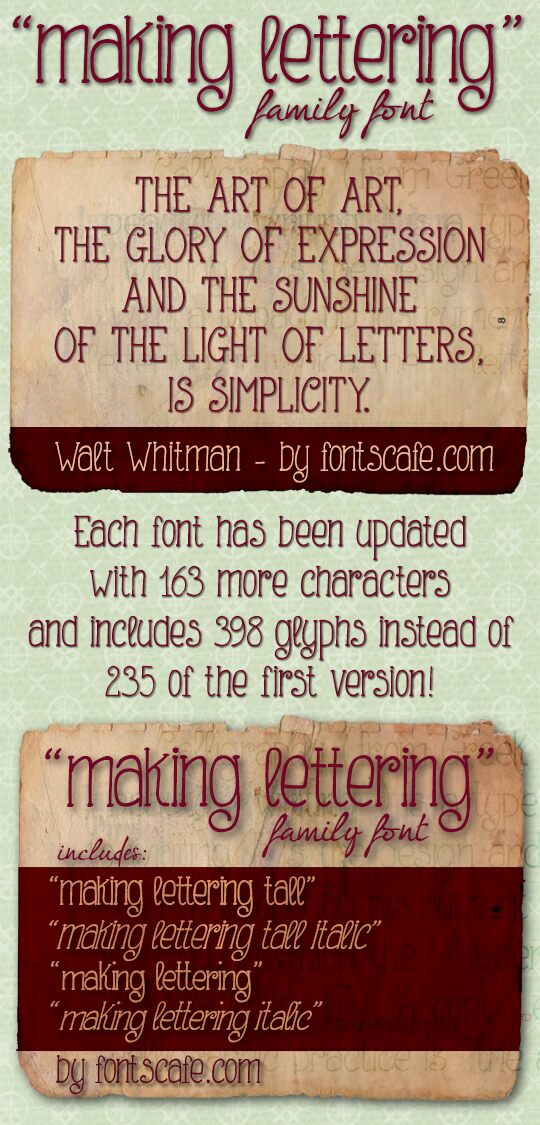
Making Lettering Tall from FontsCafe is a free old-school display font with a lanky, hand-drawn build. Its narrow letters rise unevenly on gently changing strokes, with pinched joins, soft curves, and small flared tips that recall informal mid-century sign painting.
A cafe menu is its most convincing home. The loose vertical forms also fit food packaging, music posters, and playful editorial covers, especially when the design calls for lettering that feels drawn rather than typeset. On labels and small-brand merchandise, those tall irregular shapes can become a recognizable part of the product identity.
Making Lettering Tall is a hand-drawn serif font created with a single marker pen.
Making Lettering has been updated with a new set of characters and is part of a family of four fonts.